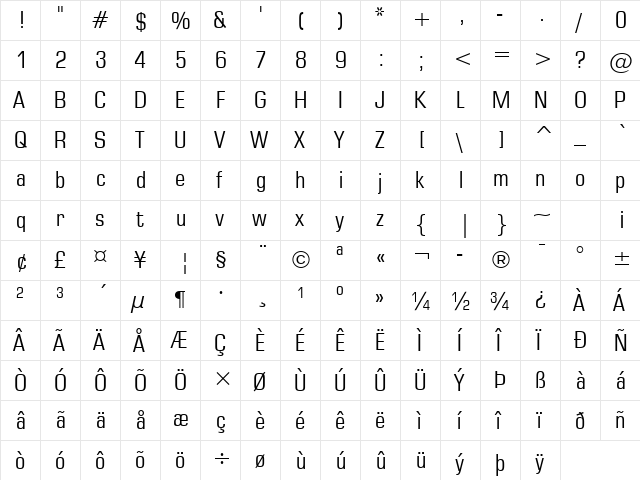
Square721 Cn BT Roman
Design Context for Square721 Cn BT Typeface
Square721 Cn BT offers clean, dependable letterforms without strong stylistic allegiance, making it a practical choice for designers who need flexibility.
Pro Tip: Use Square721 Cn BT in both headline and body roles to test its range before committing to a single application.